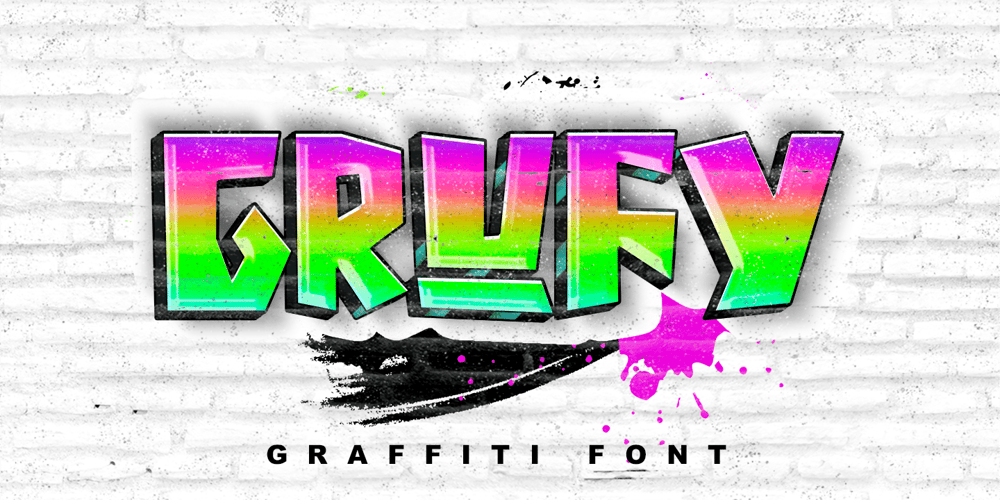
Grufy Font Family was designed by Stefani Tri Rosa Setiati Christiana and published by Stefani Letter. Grufy contains 2 styles and family package options. Grufy is an awesome bold and fun display font that will look stunning on any poster flyer or print. It will put a modern twist on any design project with its urban charm. Use this font for your designs and explore its endless possibilities.